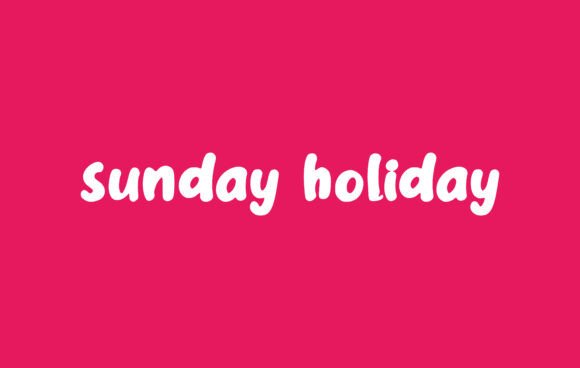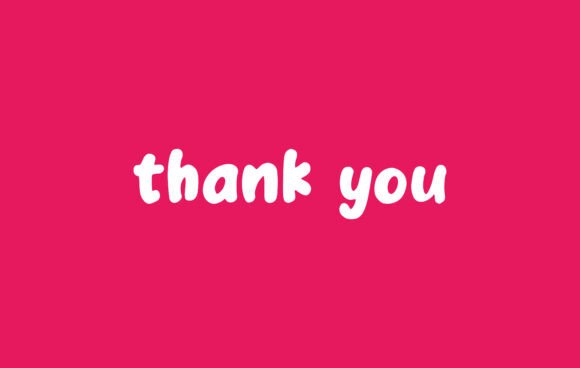
Unlock the Sweetness of Your Creative Vision
Have you ever found yourself stuck in a design rut, struggling to convey the perfect tone for your project? The words just aren’t flowing, and your creative energy is dwindling. It’s in these moments that a little inspiration can go a long way.
That’s where the Candycloud Font comes in – a beautifully crafted, authentic handwritten font that exudes romance and sophistication. This versatile font is designed to elevate your creative ideas to new heights, making it the perfect addition to any project.
As a designer, you know the importance of selecting the right font to convey your message. The Candycloud Font is legible, stylish, and perfect for a wide range of designs, from magazine headlines to social media graphics and wedding invitations. Its unique charm is sure to leave a lasting impression on your audience.
Candycloud Font Key Features
- Unique Characteristics: Candycloud Font features a playful, whimsical design with intricate details and a cloud-inspired theme, making it perfect for creative and artistic projects.
- Language Support: The font supports a wide range of languages, including Latin, Cyrillic, and Greek, making it a versatile choice for international projects.
- Script and Stylistic Sets: Candyclloud Font includes a range of script and stylistic sets, allowing users to customize the font to suit their specific needs and styles.
Candycloud Font Review
Overall, I think Candycloud Font is a visually appealing font that can add a touch of whimsy to your designs. ✨ The playful and bubbly feel of the font makes it perfect for children’s books, party invitations, or any other project that needs a bit of fun and excitement.
- ✨ The unique and quirky design makes it stand out from other fonts.
- ✨ It’s great for adding a touch of personality to your designs.
- ✨ The font is highly customizable, making it easy to adjust the size, color, and spacing to fit your needs.
- ⚠️ The font may not be suitable for formal or professional designs, as it can come across as too playful or childish.
- ⚠️ The font may not be easily legible at very small sizes, which can make it difficult to read.
- ⚠️ The font is not suitable for body text, as it’s better suited for headlines and titles.
Overall, I would recommend Candycloud Font for designers who want to add a touch of fun and personality to their designs. Just be mindful of the limitations and use it sparingly to avoid overwhelming your audience.
Getting the Most Out of Candycloud Font
For optimal results, use the Candycloud Font in conjunction with bright and pastel colors. This font is best suited for creative and playful designs, such as invitations, social media graphics, and children’s books.
The Candycloud Font is ideal for:
– Creating whimsical and magical designs
– Designing children’s products and packaging
– Adding a playful touch to social media graphics and advertisements
– Creating custom invitations and party decorations
Alternatives to Candycloud Font
Cream Soda Font is a playful, modern sans-serif font perfect for designing kid-friendly products, food packaging, or advertisements. It’s ideal for conveying a sense of fun and whimsy. Compared to Candycloud Font, Cream Soda Font has a bolder, more condensed feel, making it better suited for headings and titles.
Great Vibes Font is a elegant, cursive font ideal for designing luxury products, wedding invitations, or high-end branding. It’s perfect for conveying a sense of sophistication and elegance. Compared to Candycloud Font, Great Vibes Font has a more fluid, handwritten feel, making it better suited for titles and logos.
Pacifico Font is a beautiful, modern serif font perfect for designing travel websites, outdoor gear, or eco-friendly products. It’s ideal for conveying a sense of adventure and relaxation. Compared to Candycloud Font, Pacifico Font has a more relaxed, casual feel, making it better suited for body text and paragraphs.